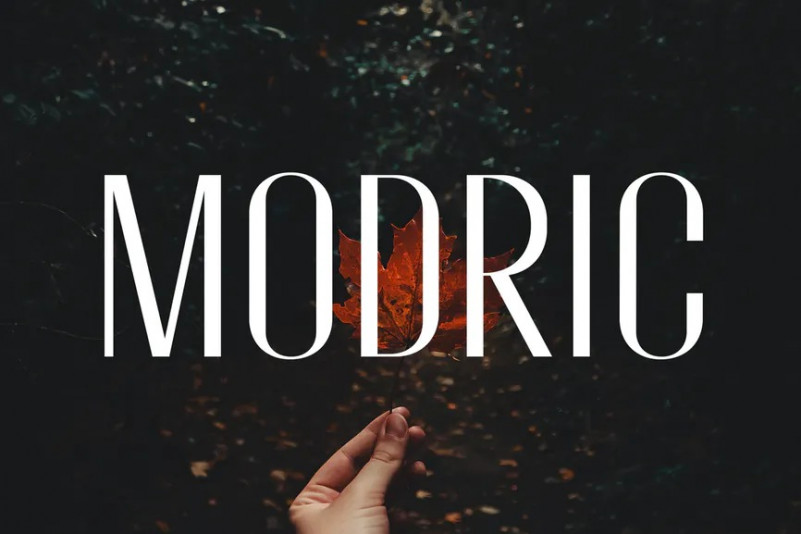
Modric Font
Modric – An Elegant Condensed Sans Serif font that specially designed for headline. Modric suitable for business projects, beauty projects, fashion, and branding. This is all caps font with multilingual support.